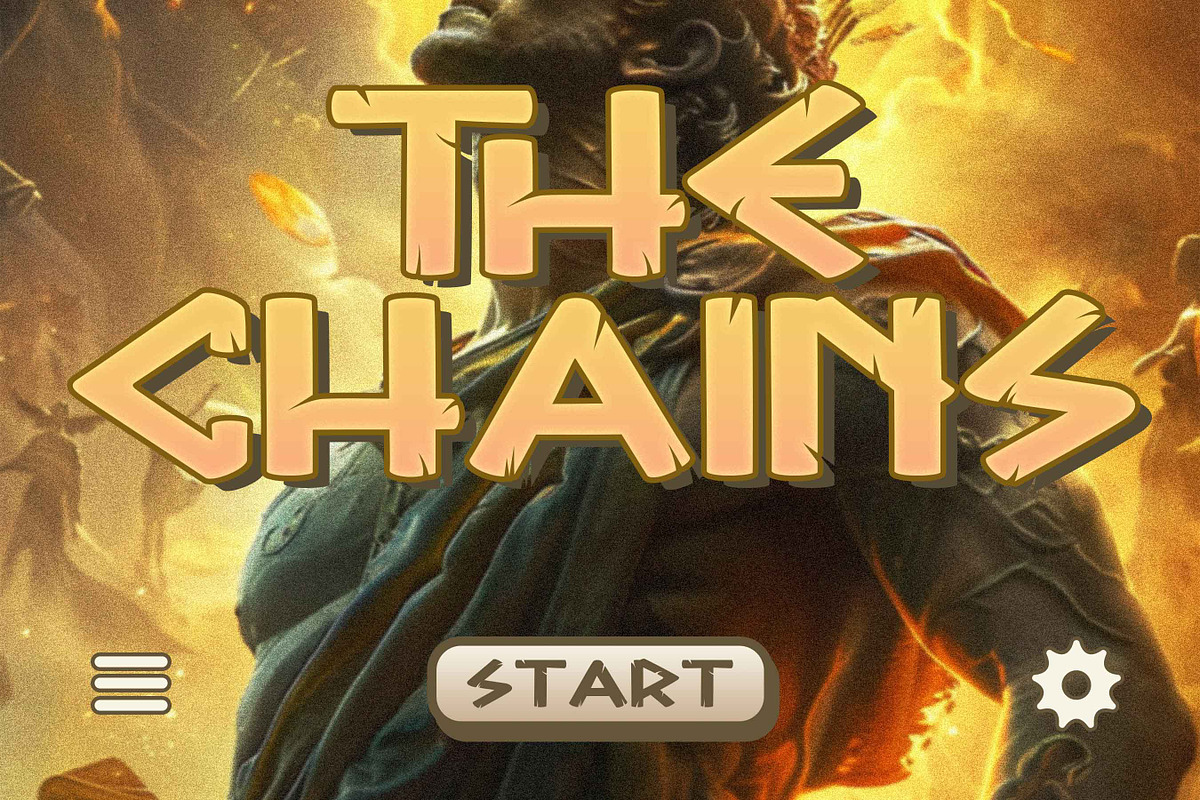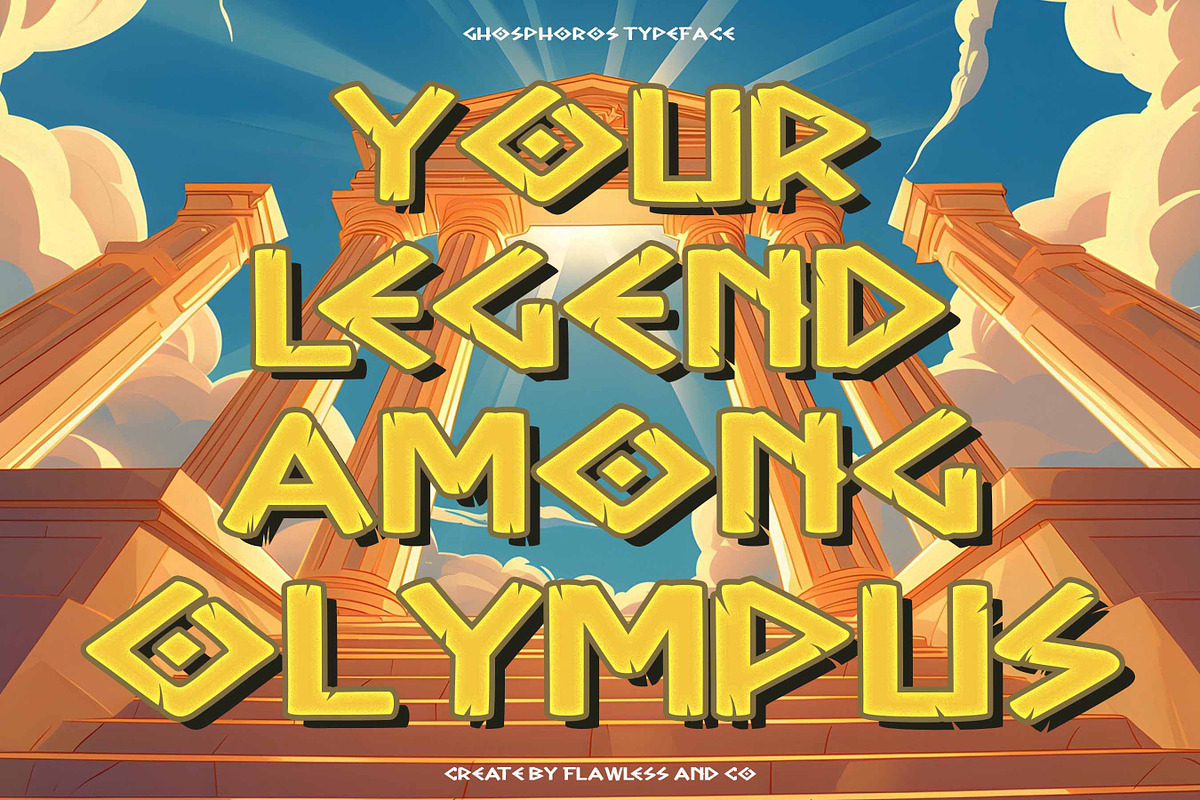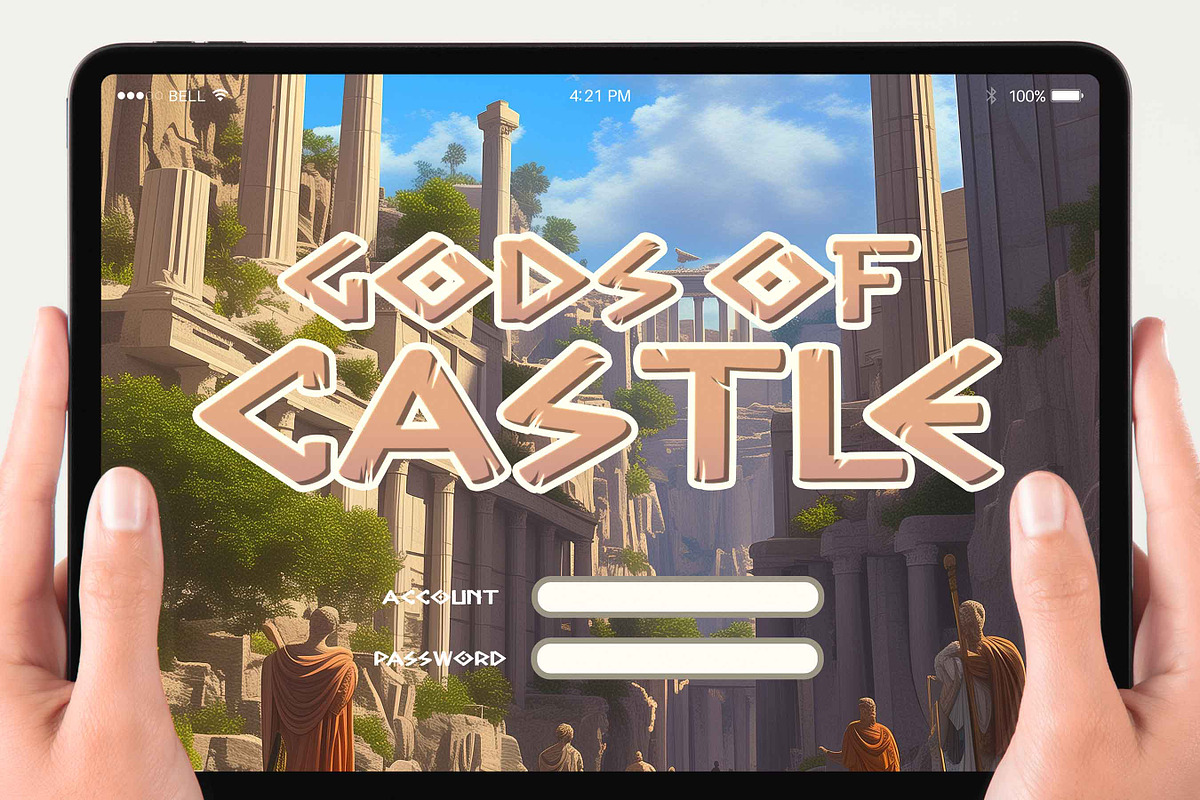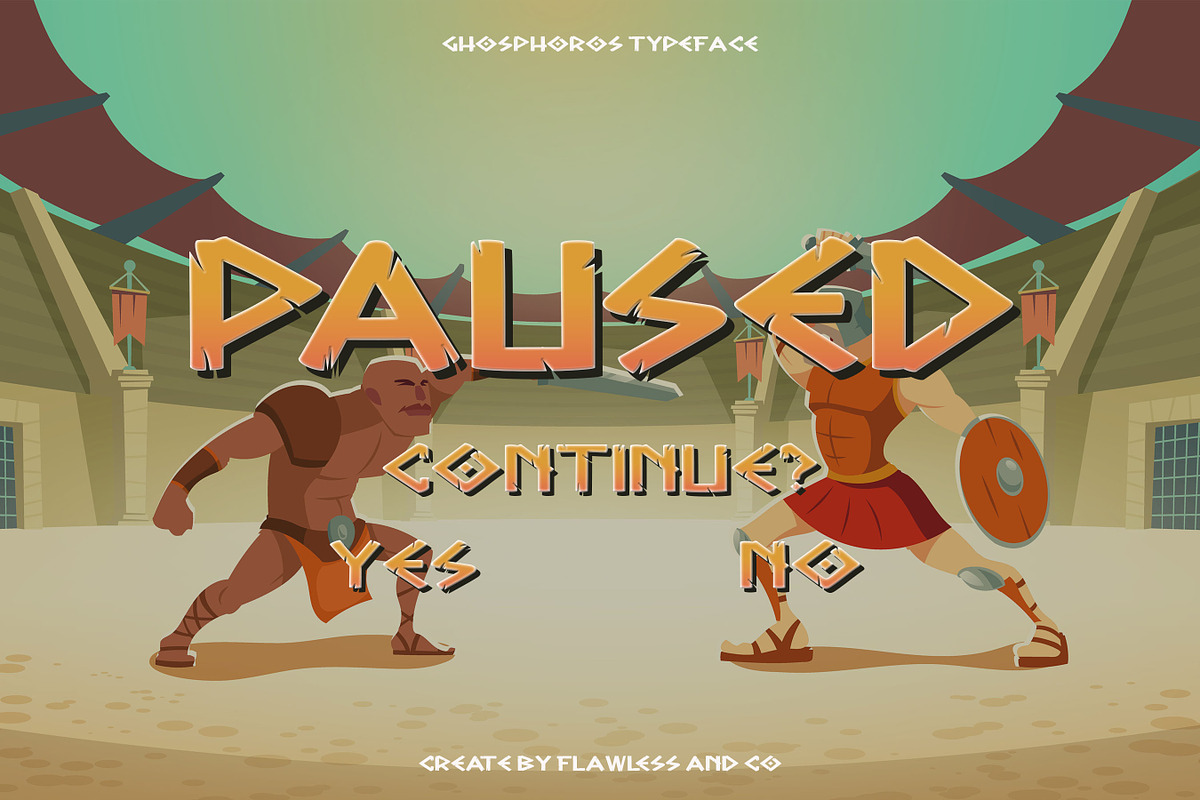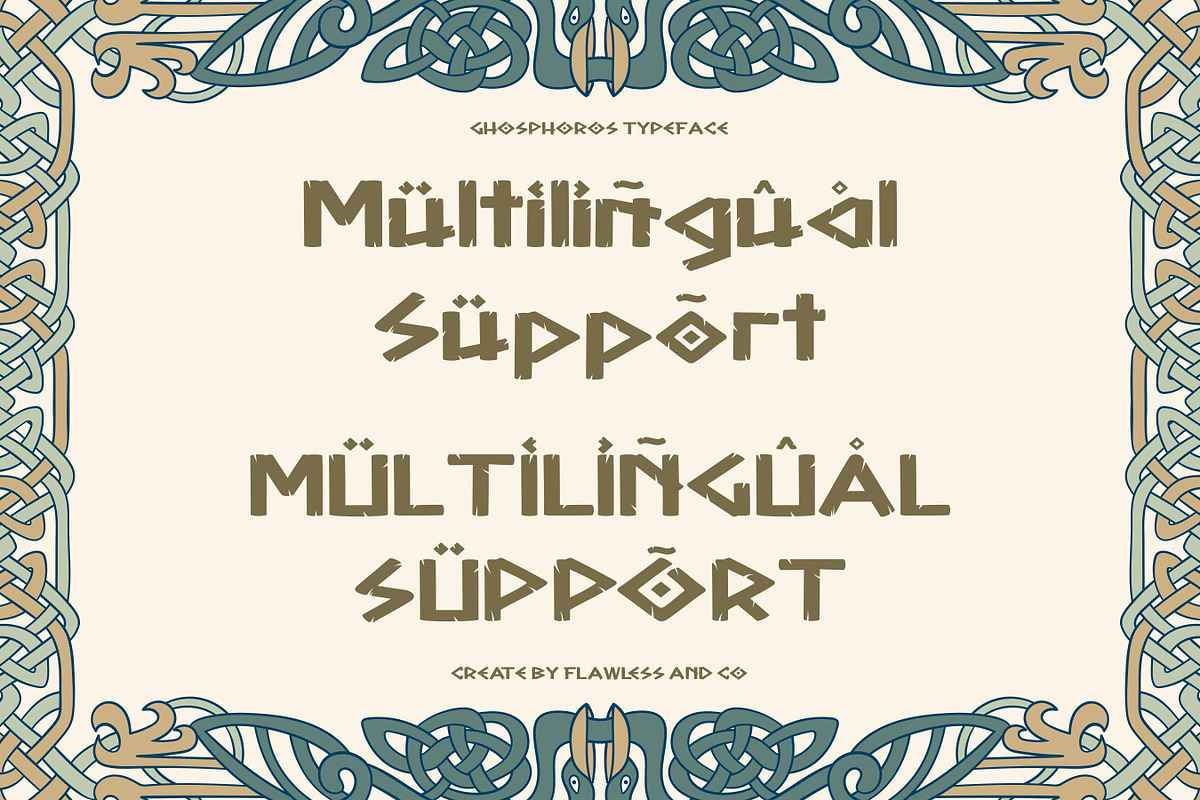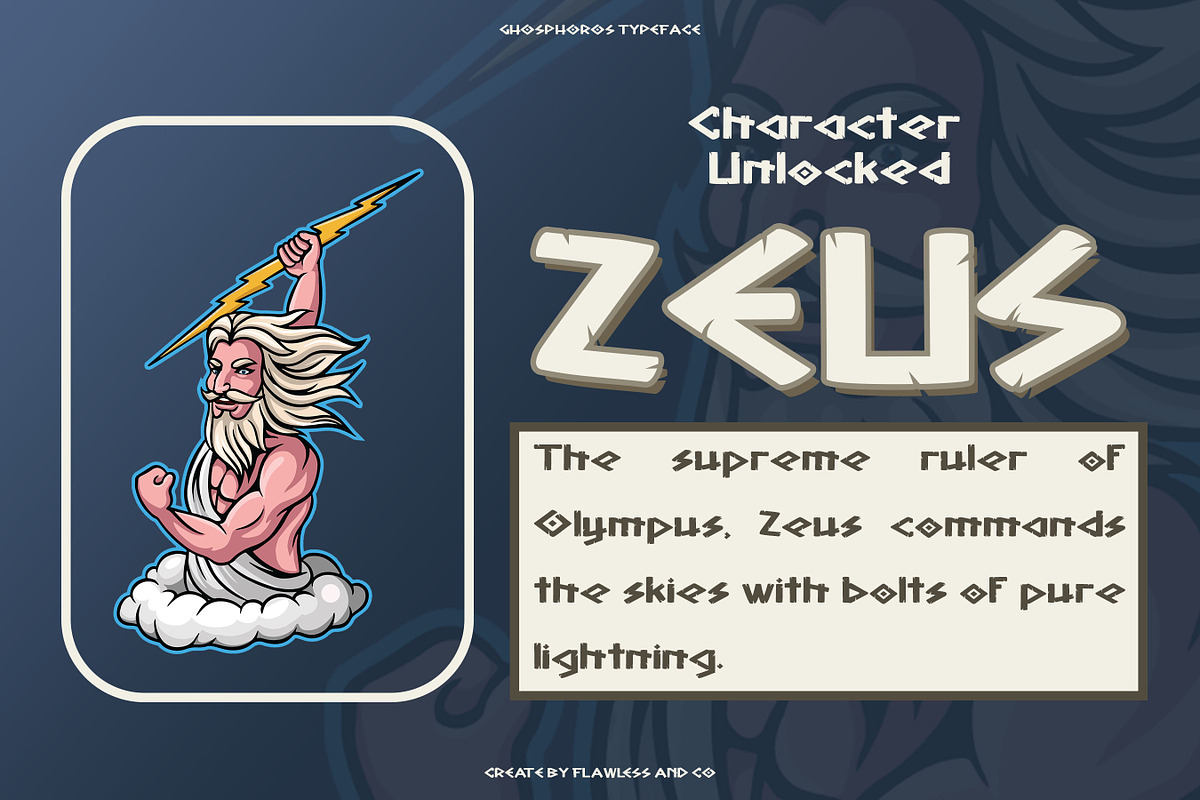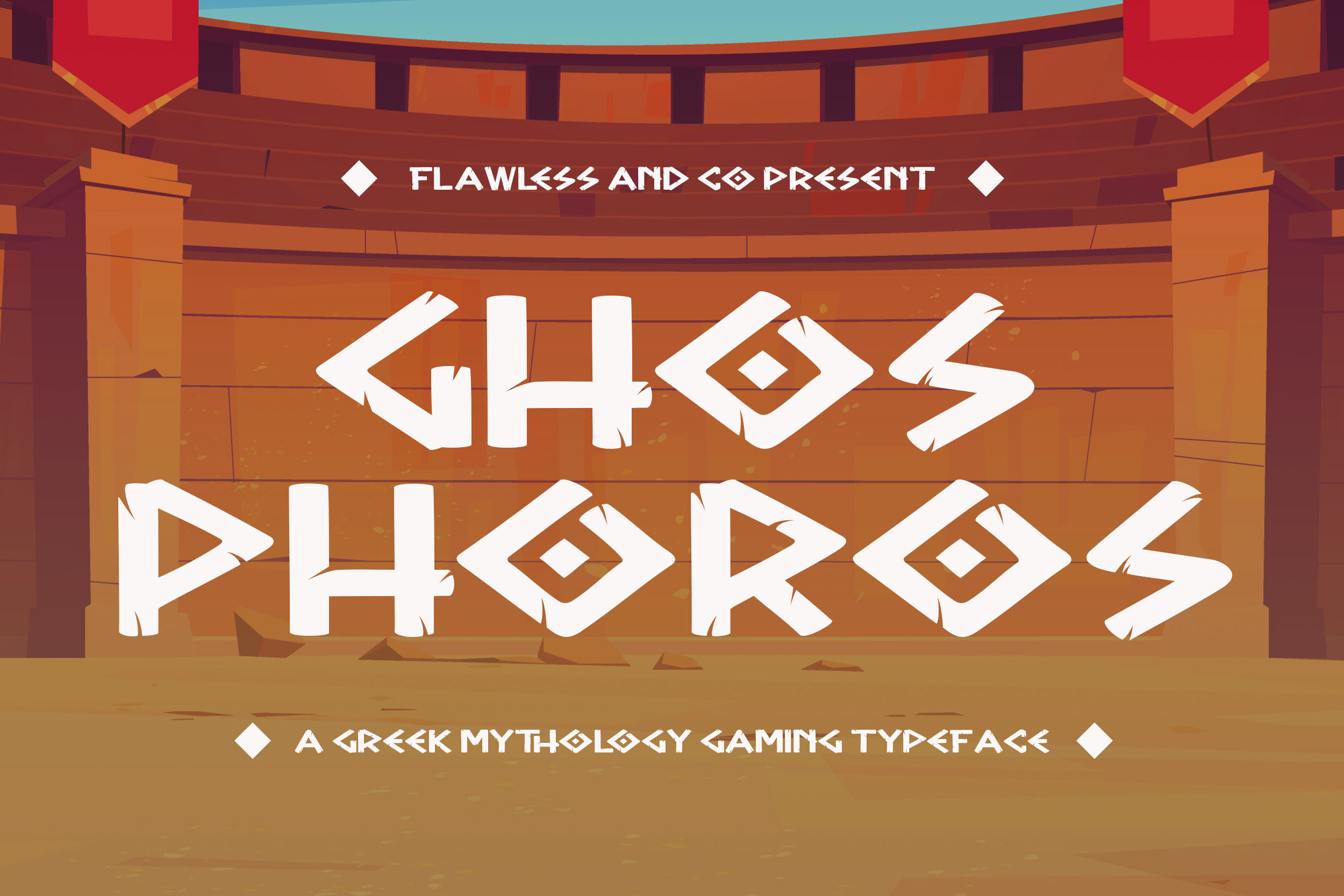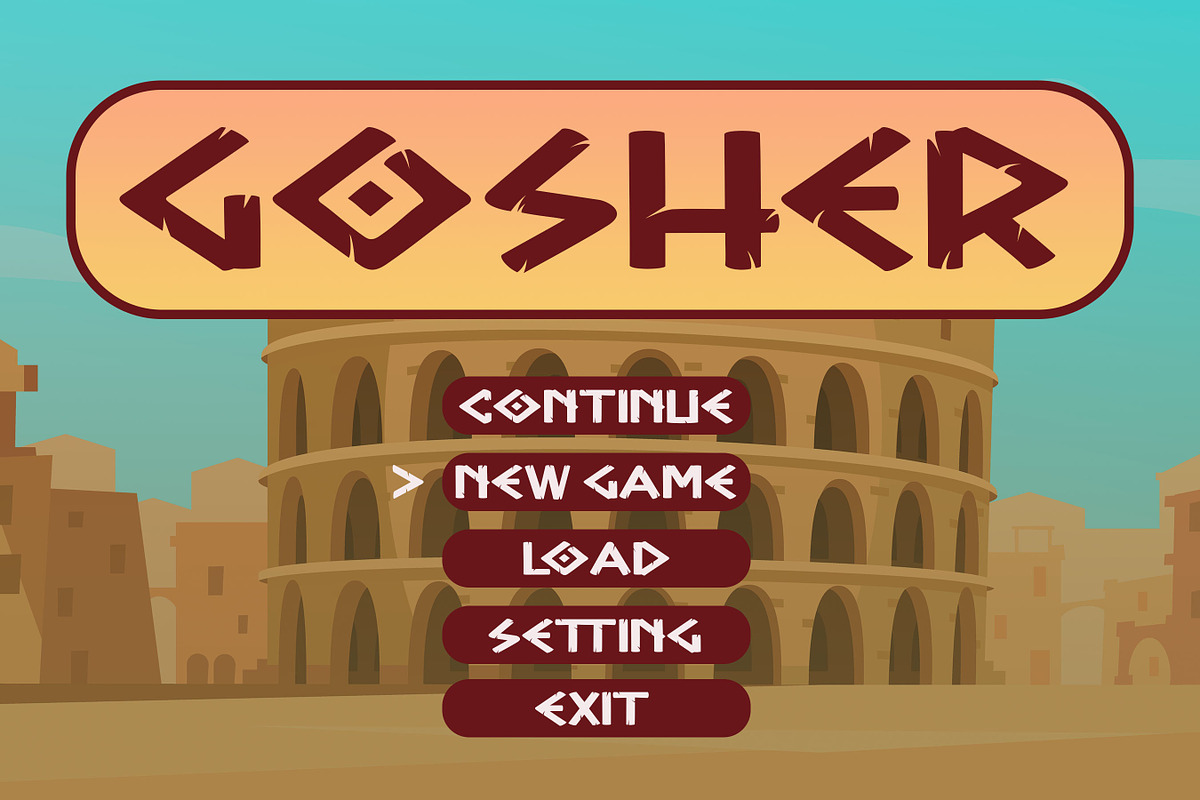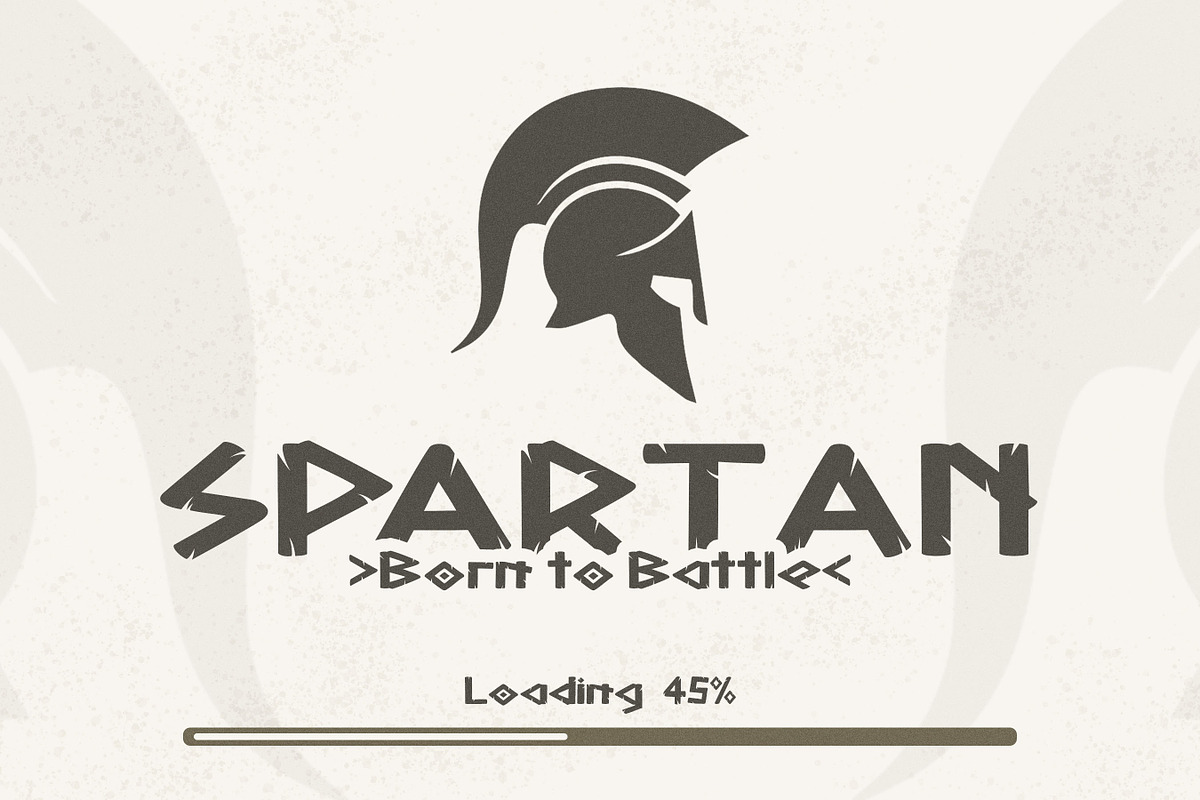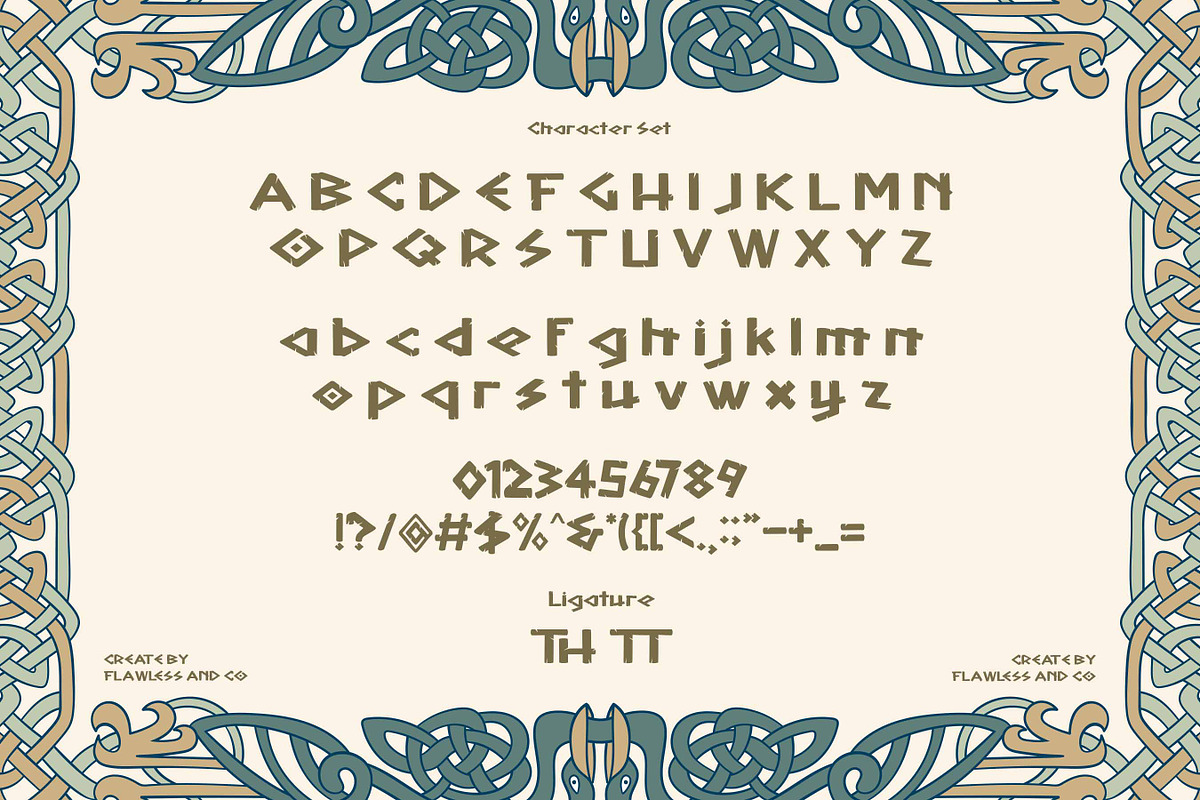
Ghosphoros - Game Font
GHOSPHOROS – A Greek Mythology Gaming Typeface Step into the arena of ancient legends with GHOSPHOROS, a bold and battle-ready typeface forged from the essence of Greek mythology and epic storytelling. With sharp angles, stone-carved edges, and a heroic spirit, this font is built to command attention in gaming interfaces, title screens, and fantasy-themed branding. Whether you’re designing for epic RPGs, action-packed arenas, or mythological quests, GHOSPHOROS brings a sense of power, legacy, and ancient might to your visual designs. Perfect for developers, storytellers, and designers who want their work to echo through the ages.
Who Should Use GHOSPHOROS?
GHOSPHOROS is made for creators who want to bring myth, power, and adventure into their designs. This typeface is perfect for:
- Game developers designing ancient or fantasy-themed titles
- UI/UX designers building bold in-game menus or splash screens
- Poster and cover artists looking for dramatic, legendary typography
- YouTubers or streamers creating content about mythology, fantasy, or action games
- Branding specialists working on logos for esports, board games, or entertainment media
- If your project needs epic energy and a touch of ancient glory—GHOSPHOROS is your ultimate font.
A Must-Have Font for Brand and Logo Creators and Designers
GHOSPHOROS isn’t just a typeface—it’s a powerful design weapon. With sharp, mythical-inspired shapes and bold character, this font instantly commands attention and sets a legendary tone. Whether you're crafting a logo for a fantasy game, a heroic-themed product, or an epic gaming brand, GHOSPHOROS gives you a striking, unforgettable identity. For designers who demand bold impact and unique style, GHOSPHOROS delivers the edge you need.
Why Choose GHOSPHOROS for Gaming Projects?
GHOSPHOROS is forged for the battlefield of imagination. Inspired by Greek mythology and ancient heroism, this font brings an epic presence to your gaming designs. Its bold angular forms and sharp detailing give off a legendary vibe—perfect for titles, menus, UI elements, and immersive branding. Whether you’re working on an action RPG, a mythological platformer, or a strategy game, GHOSPHOROS sets the tone with strength, power, and visual drama. It’s more than a font—it’s the voice of your game’s world.
Suitable For:
- Game titles and in-game menus
- Esports team logos and branding
- Greek mythology-themed projects
- Movie posters or fantasy book covers
- Adventure and battle-themed merchandise
- YouTube thumbnails and streaming overlays
- UI and HUD typography for fantasy/action games
- T-shirt designs and collectibles